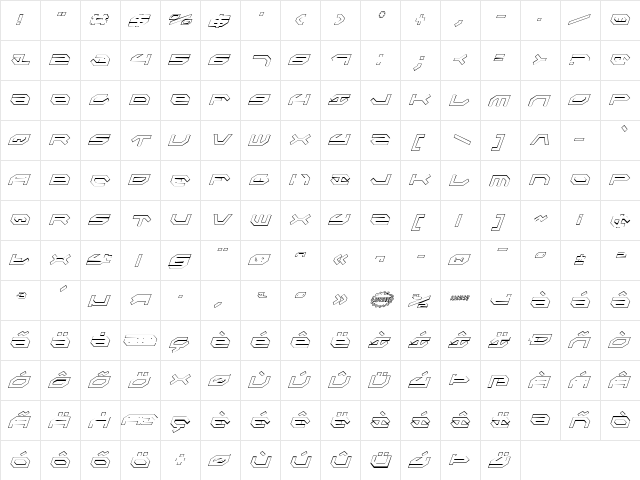
Taskforce Outline CondItalic Outline CondItalic
Design Context for Taskforce Outline CondItalic Typeface
Taskforce Outline CondItalic brings high-energy athletic personality to the page — its confident, muscular forms are built for impact. Its italic angle brings a sense of urgency and motion to the letterforms. Its narrow stance lets it pack a punch even in space-constrained designs.
Built for sports team identities, athletic apparel, event posters, and high-energy promotional material.
Pro Tip: Taskforce Outline CondItalic thrives on contrast — try it large, bold, and tight against a clean background for maximum visual impact.